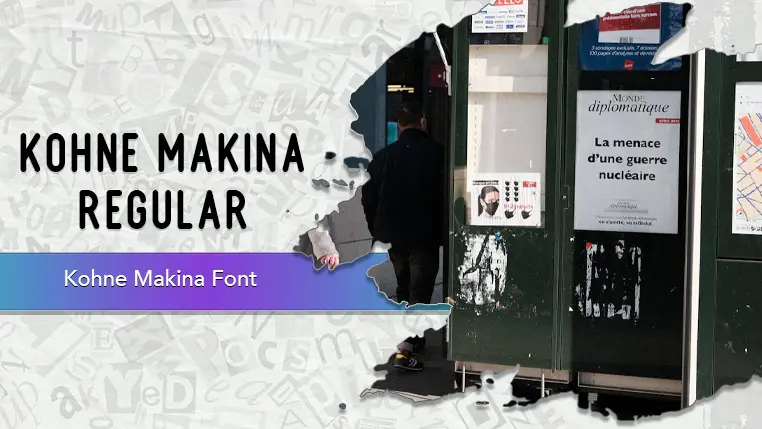
The Kohne Makina font family may be ideal for you if you enjoy working on an artistic design project. The lively, expressive look of this typeface, which was created by Krafti Lab, makes it ideal for Logos, Branding, Posters and Headlines. Ideal for creating bold and clear messages for social media posts, ads, and banners. Works well for T-shirt designs, hoodies, and other merchandise where a strong, bold font is desired. and other light-hearted visual projects.
Regular are the one primary font styles of the Kohne Makina font family. You may build dynamic, visually appealing text layouts with the distinct flair that each style offers. With crisp, readable lines and a relaxed tone.